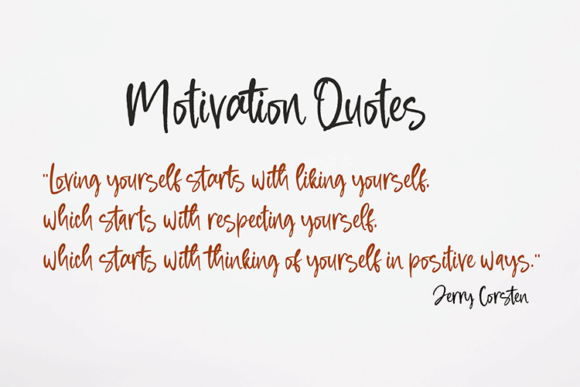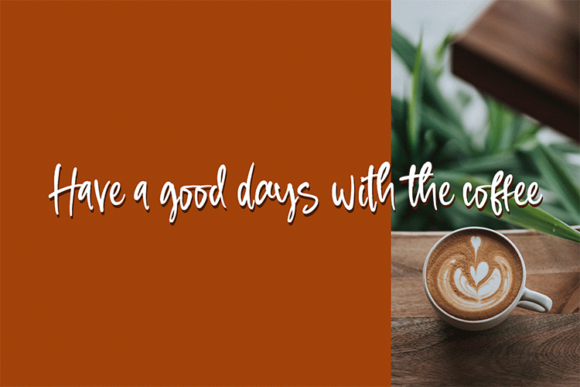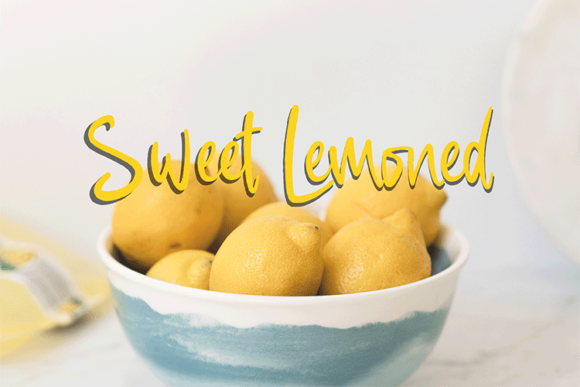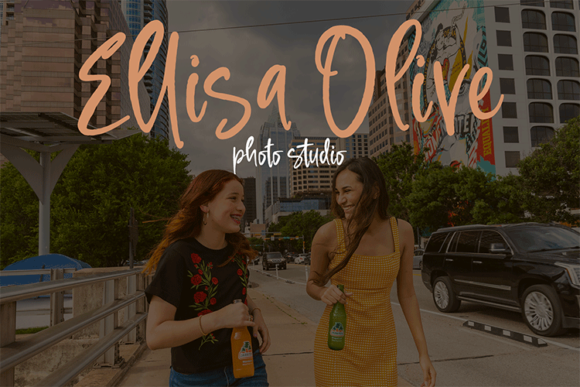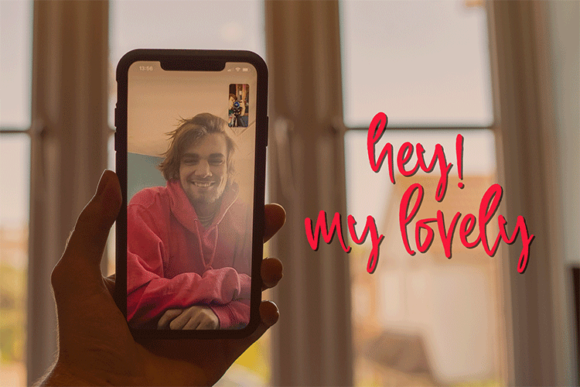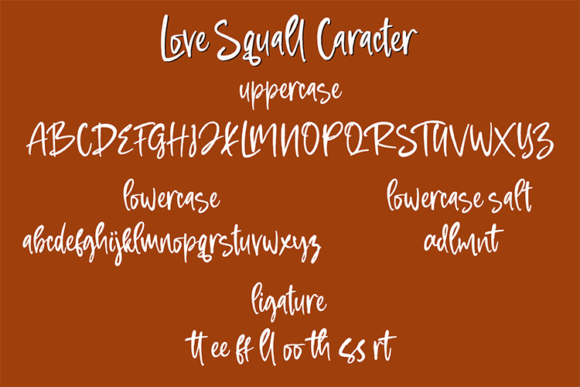
Introduction to Love Squall Font
Love Squall is a unique and elegant handwritten font.
It looks beautiful on a variety of designs requiring a personalized style, such as wedding invitations, thank you cards, weddings, greeting cards, logos and so on .
Key Features of Love Squall Font